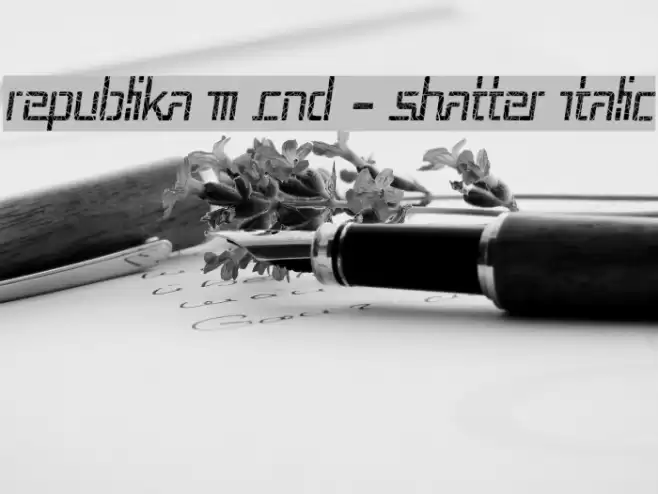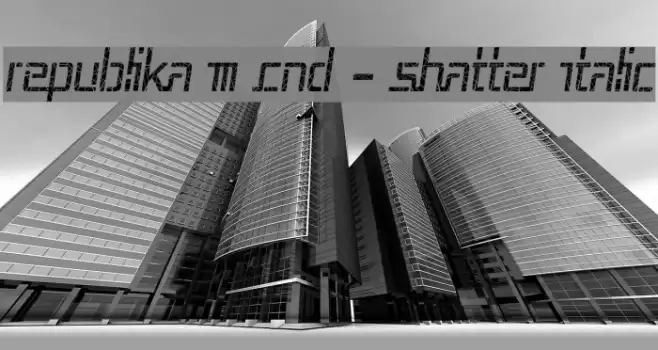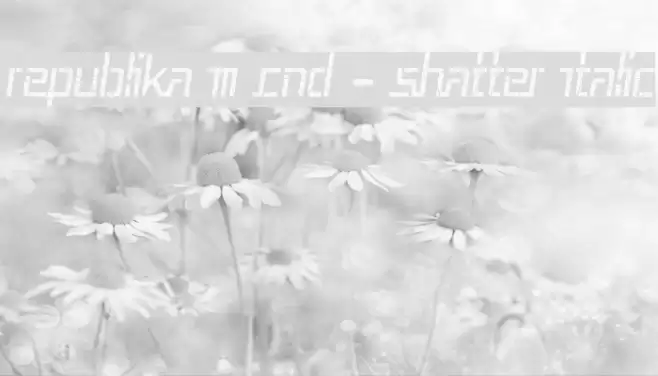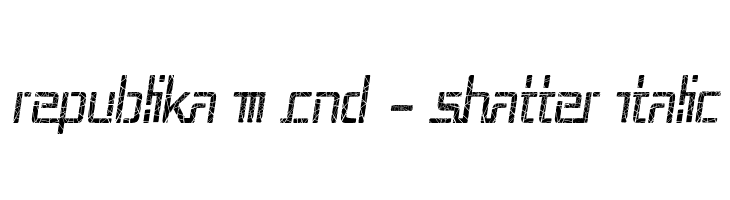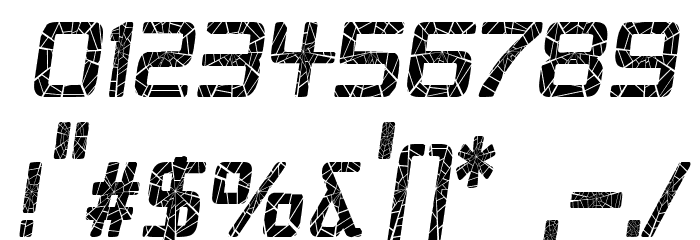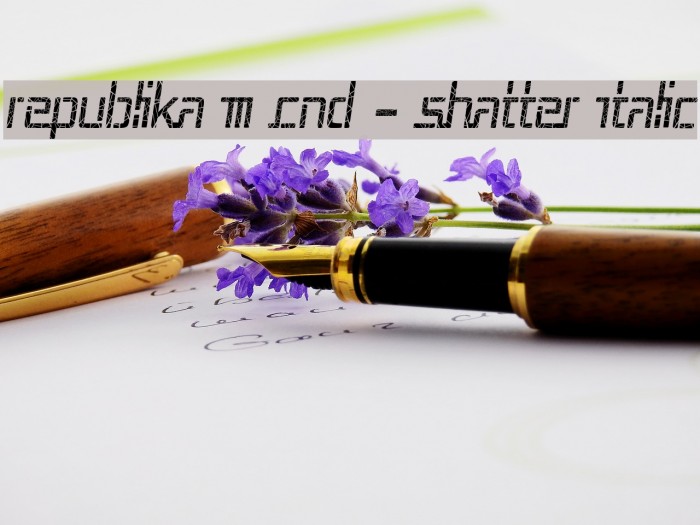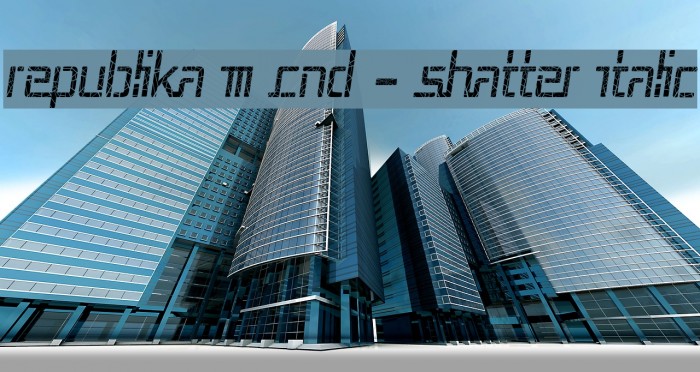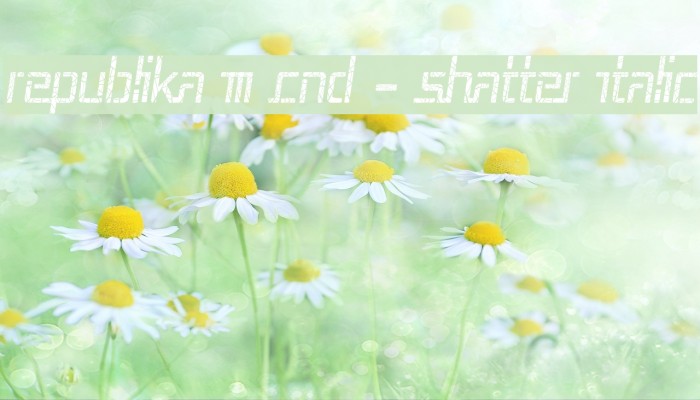
Republika III Cnd - Shatter Italic Font
Republika III Cnd - Shatter Italic Description
This font features a unique shattered effect, giving each character a fragmented and dynamic appearance. The angular, geometric design is consistent across both uppercase and lowercase letters, as well as numbers and special characters. The italic slant adds a sense of motion and energy, enhancing its modern and edgy look. The characters are well-defined with a medium contrast in stroke thickness, making them stand out while maintaining readability. The font's shattered style is particularly eye-catching, making it suitable for projects that require a bold and unconventional aesthetic.
A shattered, italic font with a geometric and dynamic style from Uncategorized fonts.
- Proposed Projects: Ideal for modern branding, edgy posters, album covers, and digital artwork.